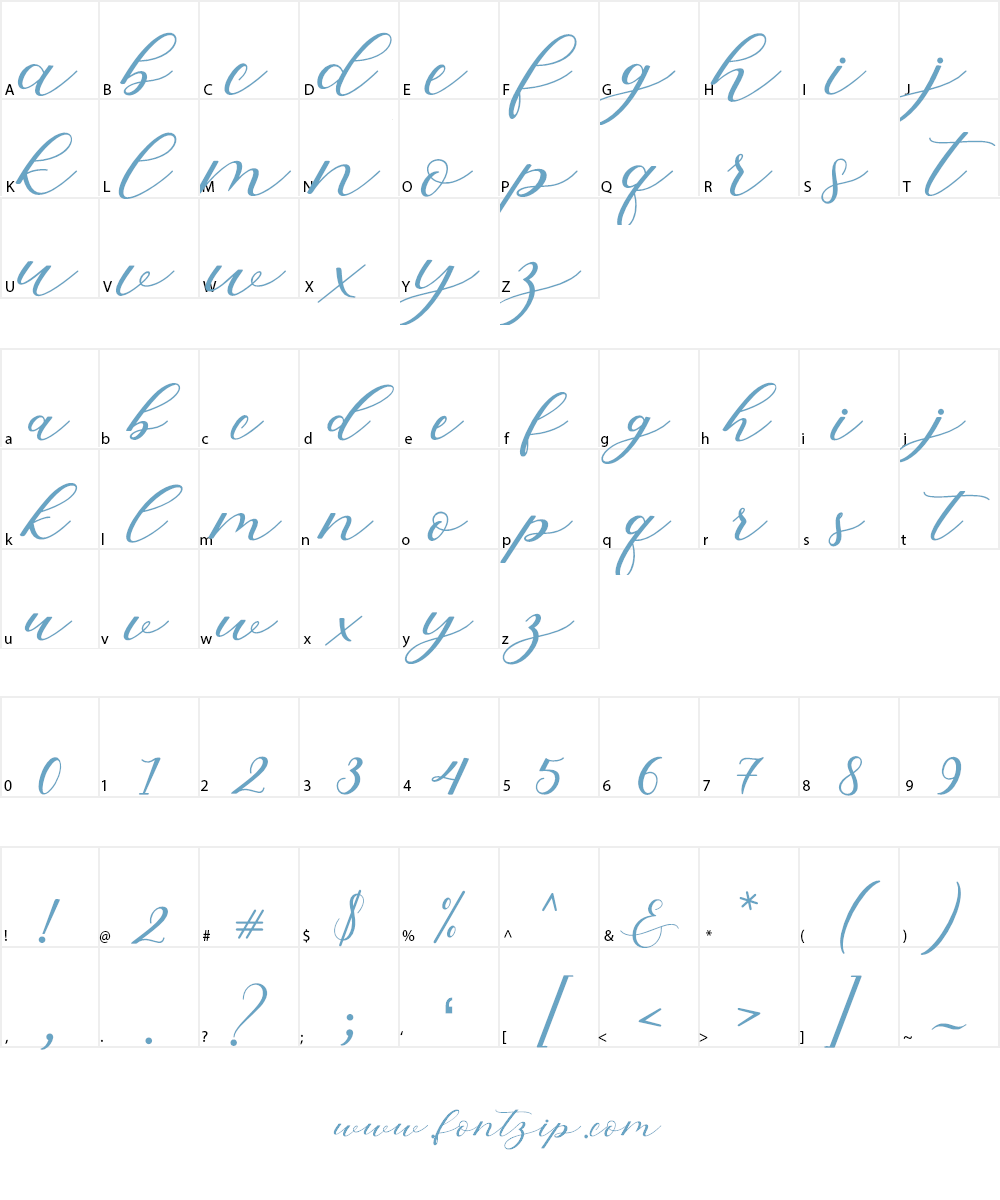
is a modern feminine font, each letter has been carefully crafted to make your text look beautiful. With modern script style, this font will be perfect for projects: photography, watermarks, quotes, headers of blogs, posters, weddings, branding, logos, fashions, clothes, letters, invitations, stationery, Hiters Script Fontigraphy New elegant fonts! For those of you who need an elegant and modern touch for your design, this font is made for you!